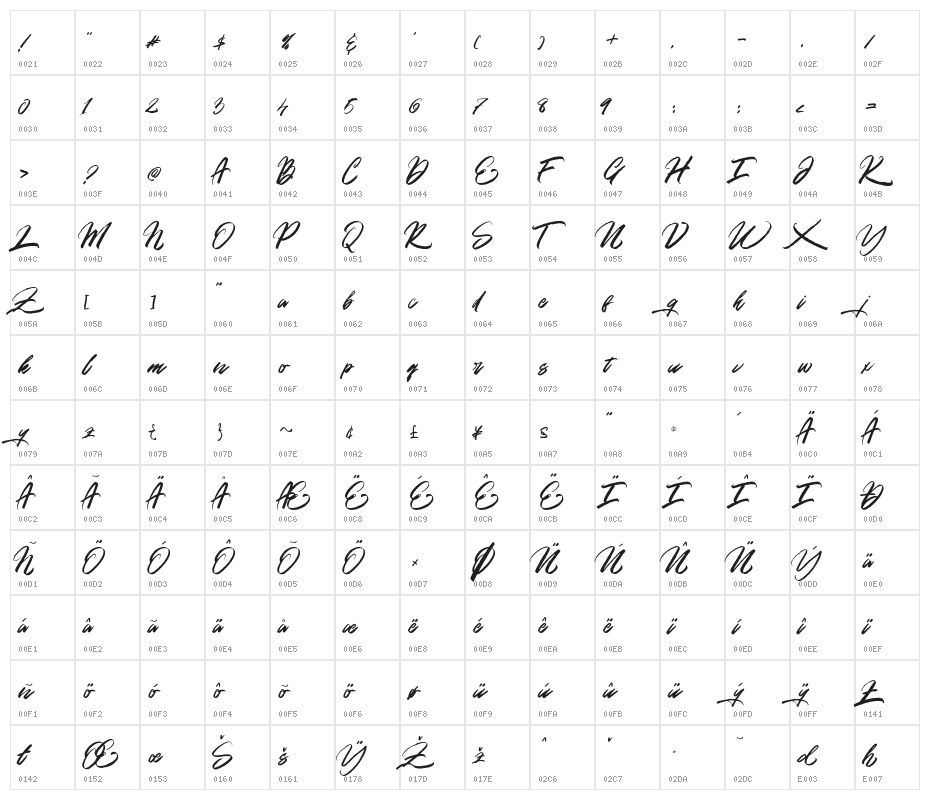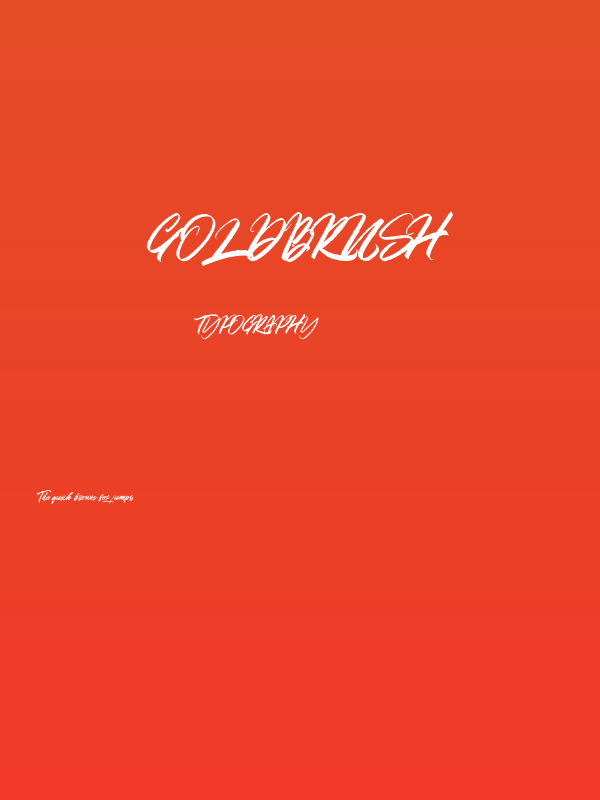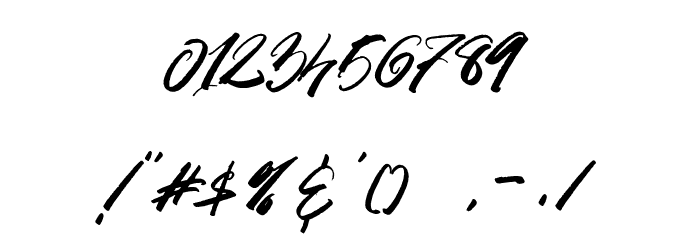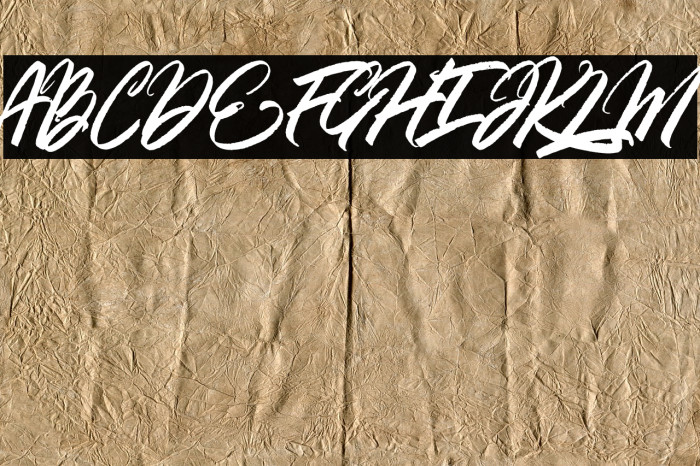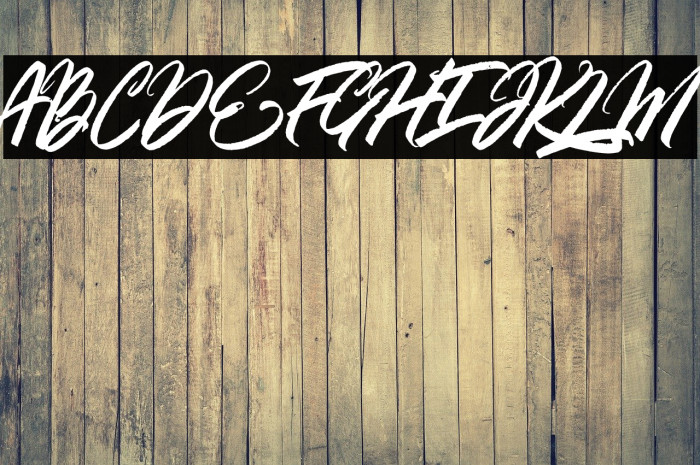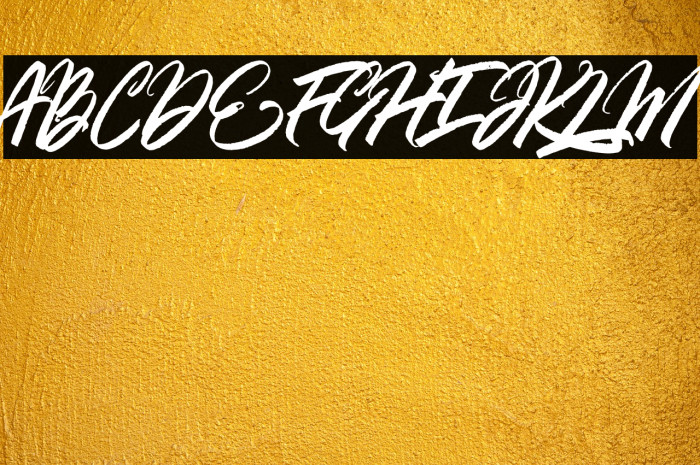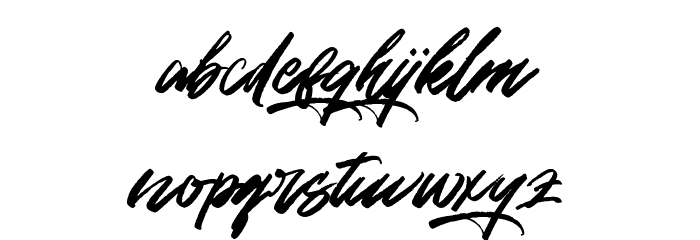
GoldBrush Font
GoldBrush Description
This font features a bold and expressive script style, characterized by its fluid and dynamic strokes. The letters are connected in a cursive manner, giving it a handwritten appearance. The uppercase letters are particularly elaborate, with sweeping lines and flourishes that add a sense of elegance and movement. The lowercase letters maintain a consistent flow, complementing the uppercase with their own subtle curves. The numbers and special characters are designed to match the overall aesthetic, ensuring a cohesive look across all elements. This font is ideal for projects that require a personal touch or a sense of artistic flair.